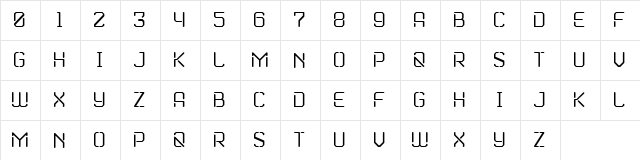
Marske Regular
| Foundry | Kash Singh, Sergiy Tkachenko |
| Designer | Kash Singh, Sergiy Tkachenko |
Design Context for Marske Typeface
Marske is a composed and adaptable typeface that performs quietly and consistently across a wide range of design contexts.